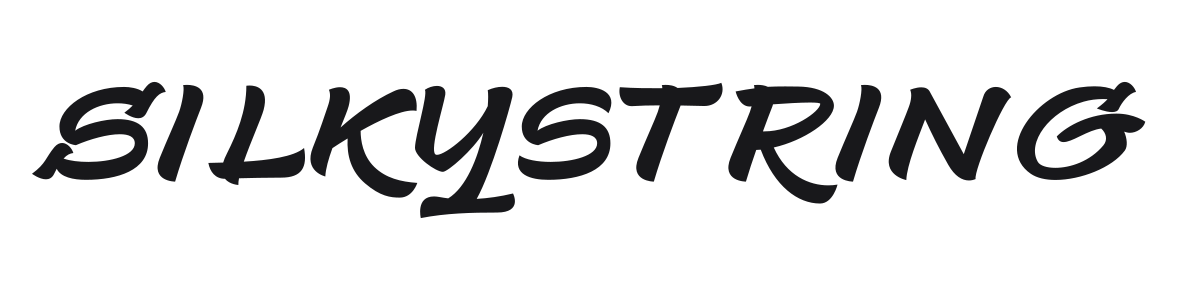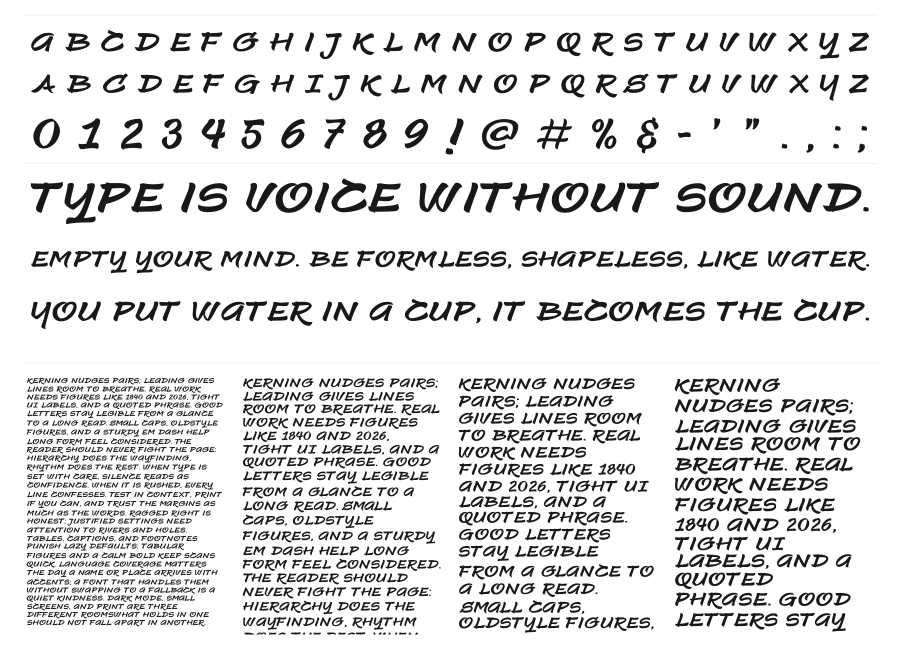
Silkystring
by Heypen Type · Website
Silkystring is a bold italic brush script with thick, textured strokes and a strong forward lean. The variable stroke contrast and rough edges give it the feel of quick, confident brushwork rather than polished calligraphy. It has the energy of mid-century sign painting with a contemporary edge.